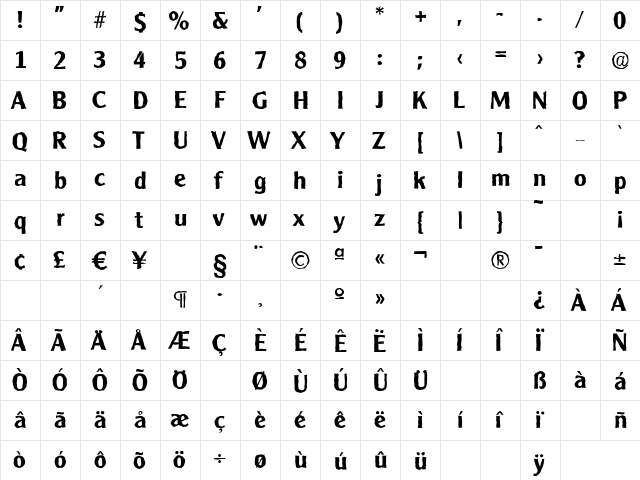
ClearGothicAntique Bold
Design Context for ClearGothicAntique Typeface
ClearGothicAntique wears its vintage influences proudly, with letterforms that recall mid-century signage, classic packaging, and nostalgia-driven design. Its bold stroke weight gives it real presence on the page.
Font Pairing: Combine ClearGothicAntique with a simple slab or neutral sans — period-accurate companions reinforce the vintage feel without competing for attention.
Pro Tip: Use ClearGothicAntique for headlines and pull quotes rather than body copy — its personality is best appreciated in short, focused bursts.